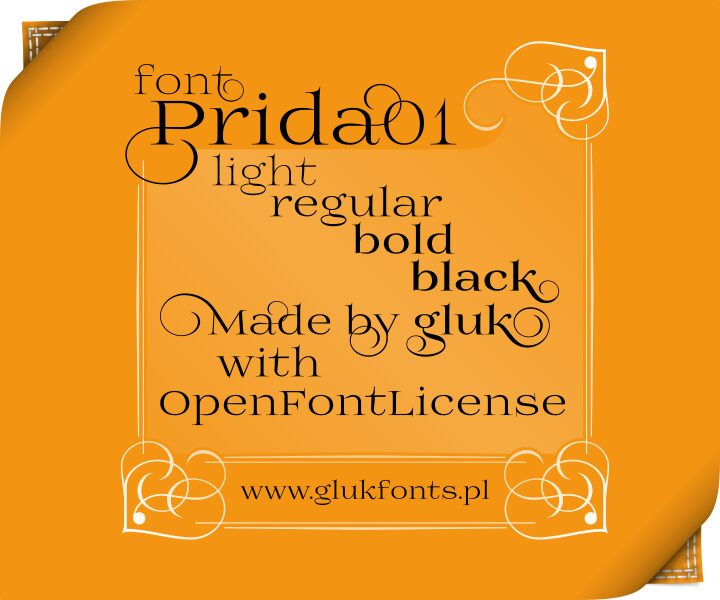
Prida01 is a captivating serif font that exudes a refined and elegant aesthetic. Designed by Gluk, this light and expanded typeface effortlessly blends classic influences with modern sensibilities.
The delicate, yet confident strokes create a harmonious balance, lending a sense of sophistication and timelessness to any design. Prida01's versatility shines through, making it a versatile choice for a wide range of applications, from high-end editorial layouts to sophisticated branding and beyond.
Its distinctive character and attention to detail elevate the visual experience, making it a standout option for designers seeking a font that captivates and inspires.
Prida01
Light